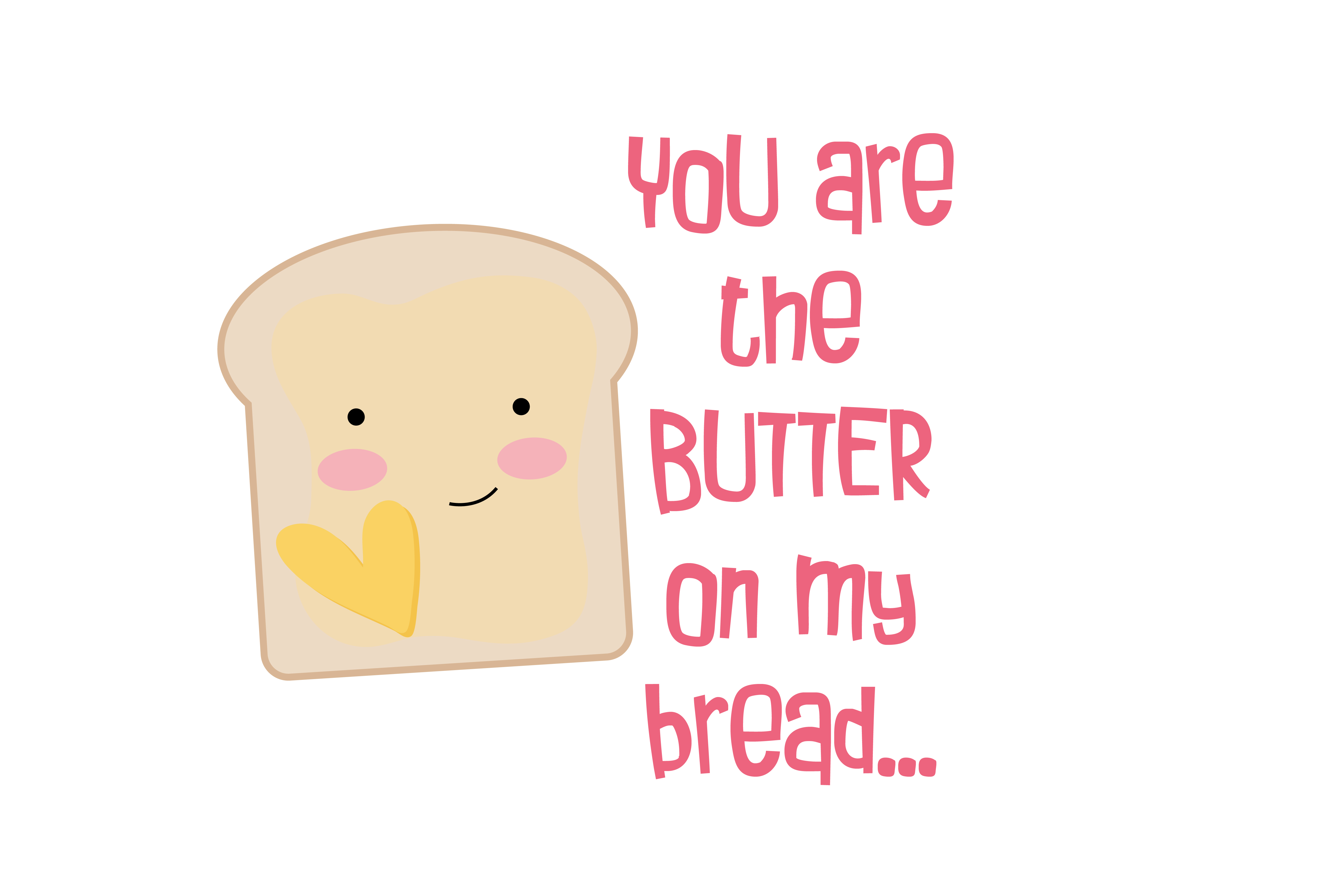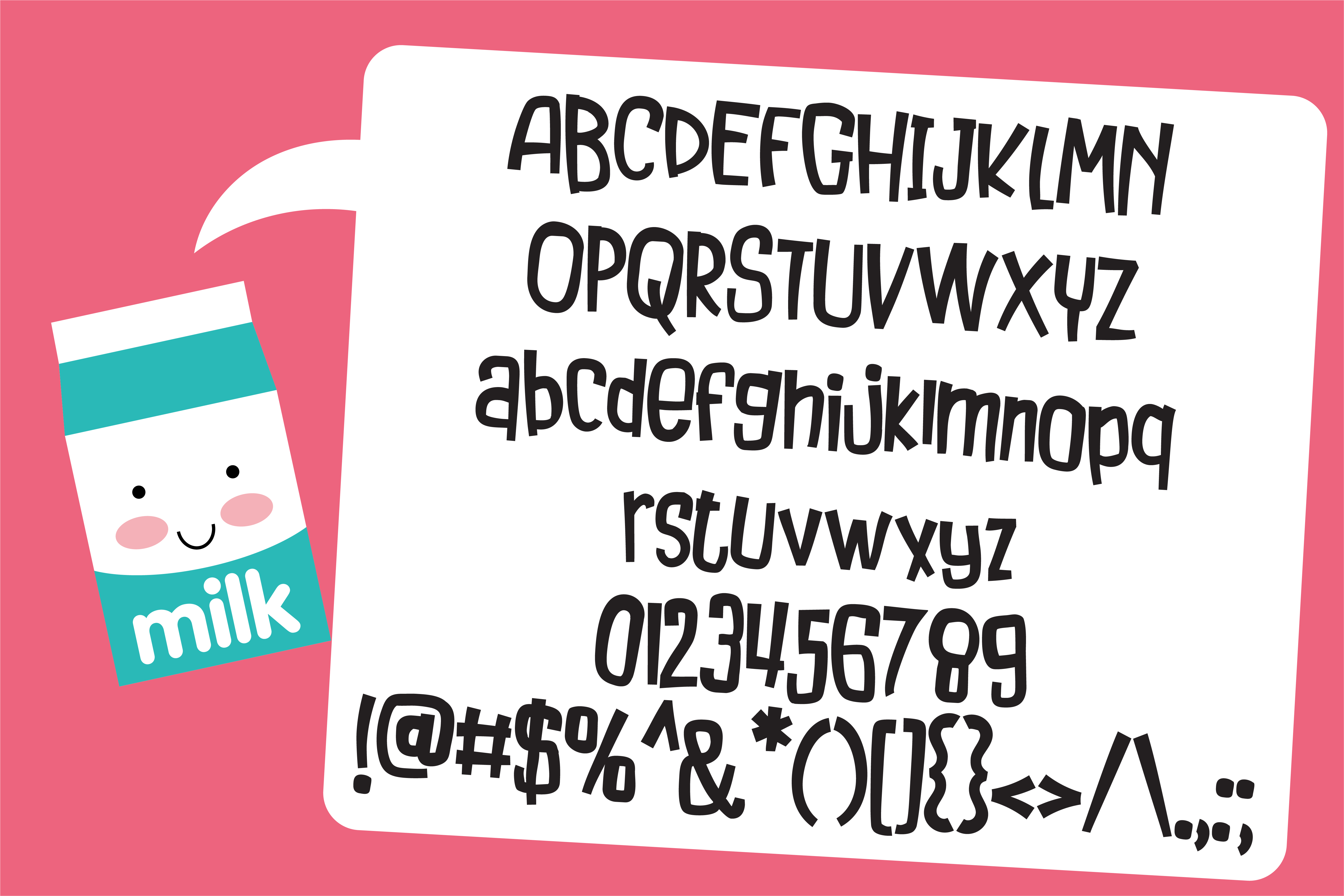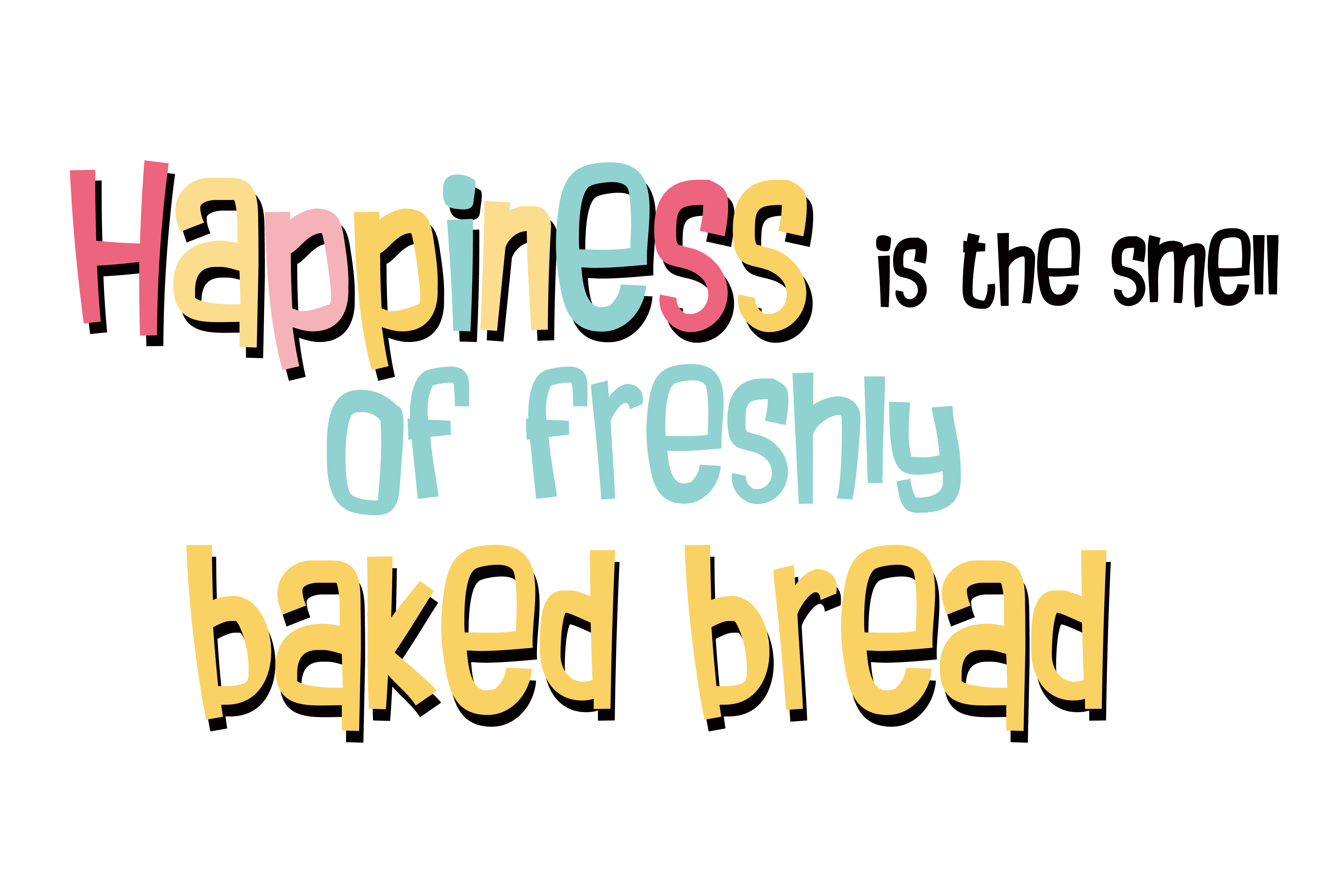
Introduction to Bread and Sugar Font
Bread and Sugar is a whimsical, hand-crafted font that adds a homey and fun touch to any project, whether in print or digital applications.
Bread and Sugar is a whimsical, hand-crafted font that adds a homey and fun touch to any project, whether in print or digital applications!
Key Features of Bread and Sugar Font